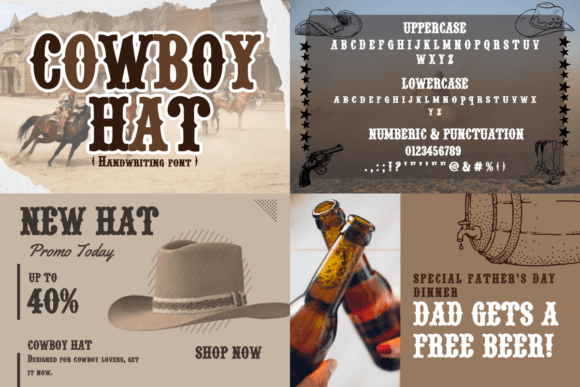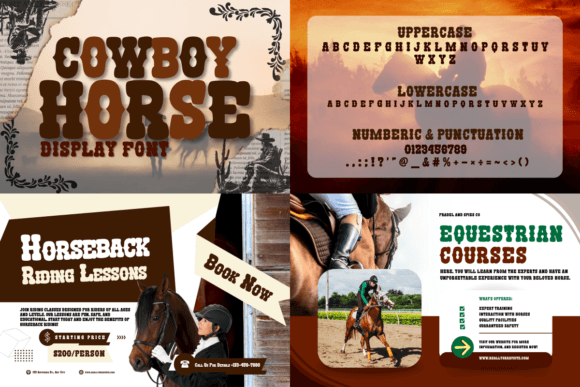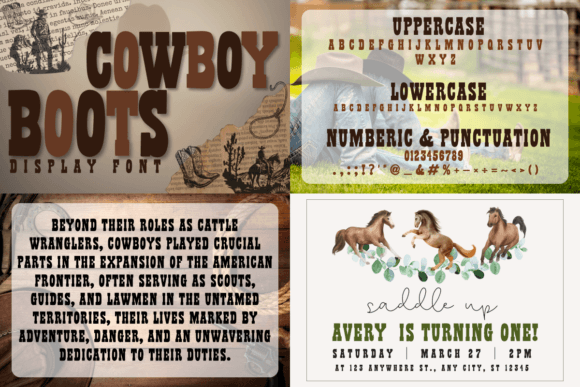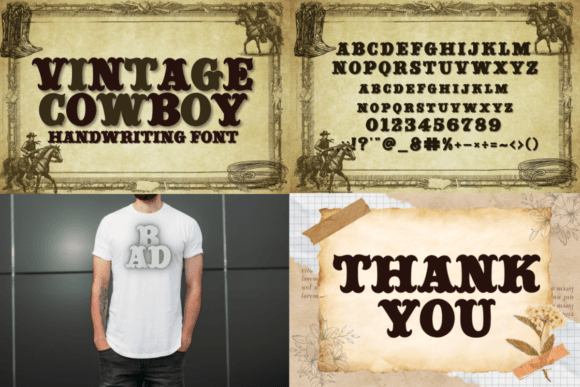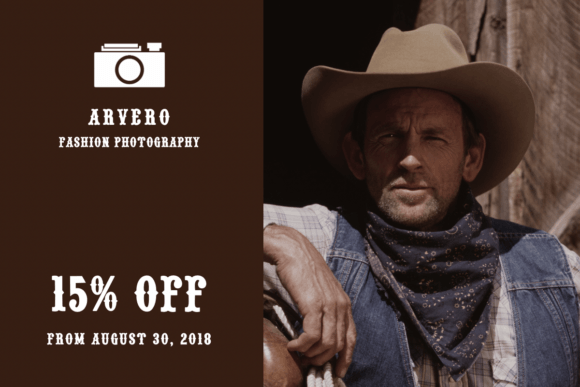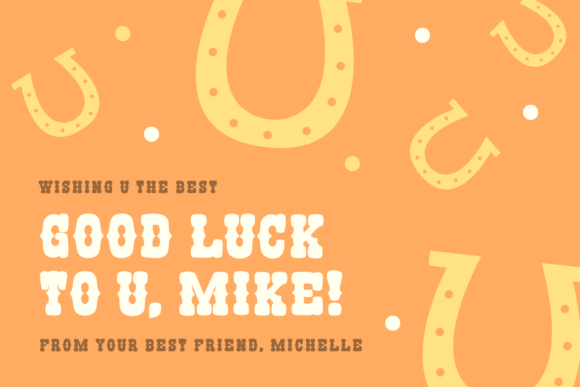
The Wild West of Typography: A Deep Dive into the Cowboy Bundle Font
I’ll never forget the project that led me to discover the Cowboy Bundle Font. I was working on a branding campaign for a new western-themed restaurant, and I was struggling to find the perfect font to capture the essence of the wild west. The client wanted something that would transport their customers to the dusty streets of a 19th-century cowboy town, but I was coming up empty-handed. That was until I stumbled upon the Cowboy Bundle Font – a vintage collection of cowboy-style fonts that would change the game for my project and for my design work forever.
An Honest Review: The Good, the Bad, and the Quirky
What I Love About Cowboy Bundle Font
- ✨ Western Charm: The Cowboy Bundle Font exudes a classic, rustic charm that’s perfect for creating a wild west look.
- ✅ Variety of Styles: The bundle includes a range of font styles, from bold and simple to more ornate and decorative.
- 🔥 Attention-Grabbing: These fonts are designed to make a statement, and they do just that – perfect for posters, logos, and other eye-catching designs.
While the Cowboy Bundle Font is an amazing resource, there are a few things to keep in mind:
- ⚠️ Limited Modernity: As a vintage-inspired font, it may not be the best fit for super modern or minimalist designs.
- 🤔 Glyph Overload: With so many glyphs and stylistic alternates, it can be a bit overwhelming to navigate – but trust me, it’s worth the exploration.
The Story Behind the Cowboy Bundle Font
The Cowboy Bundle Font was created with the intention of capturing the spirit of the American wild west. The designer, a self-proclaimed typography enthusiast and western buff, wanted to create a collection of fonts that would transport users to the dusty streets and saloons of the 19th century. With a keen eye for detail and a passion for vintage typography, they curated a selection of fonts that embody the rugged, adventurous essence of the wild west.
Q: Are there any OpenType features or glyphs included?
A: Yes, the Cowboy Bundle Font includes a range of OpenType features, glyphs, and stylistic alternates to help you customize your text.